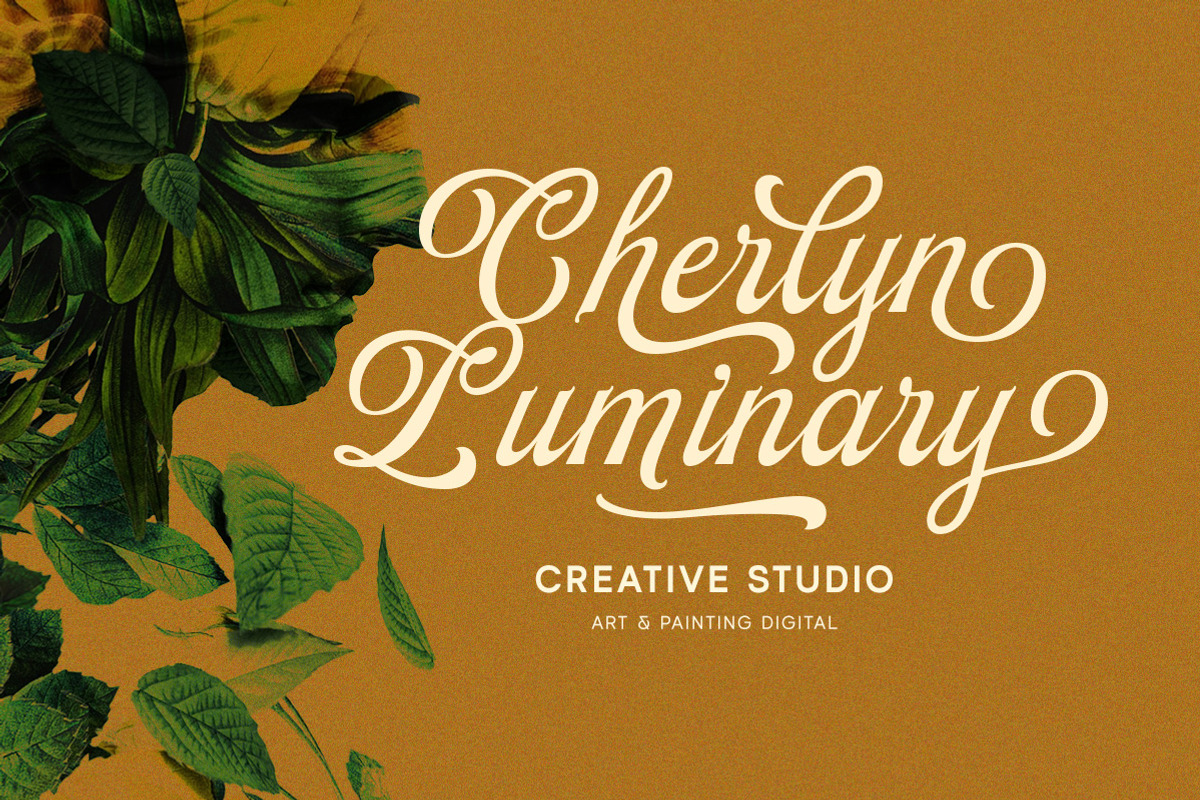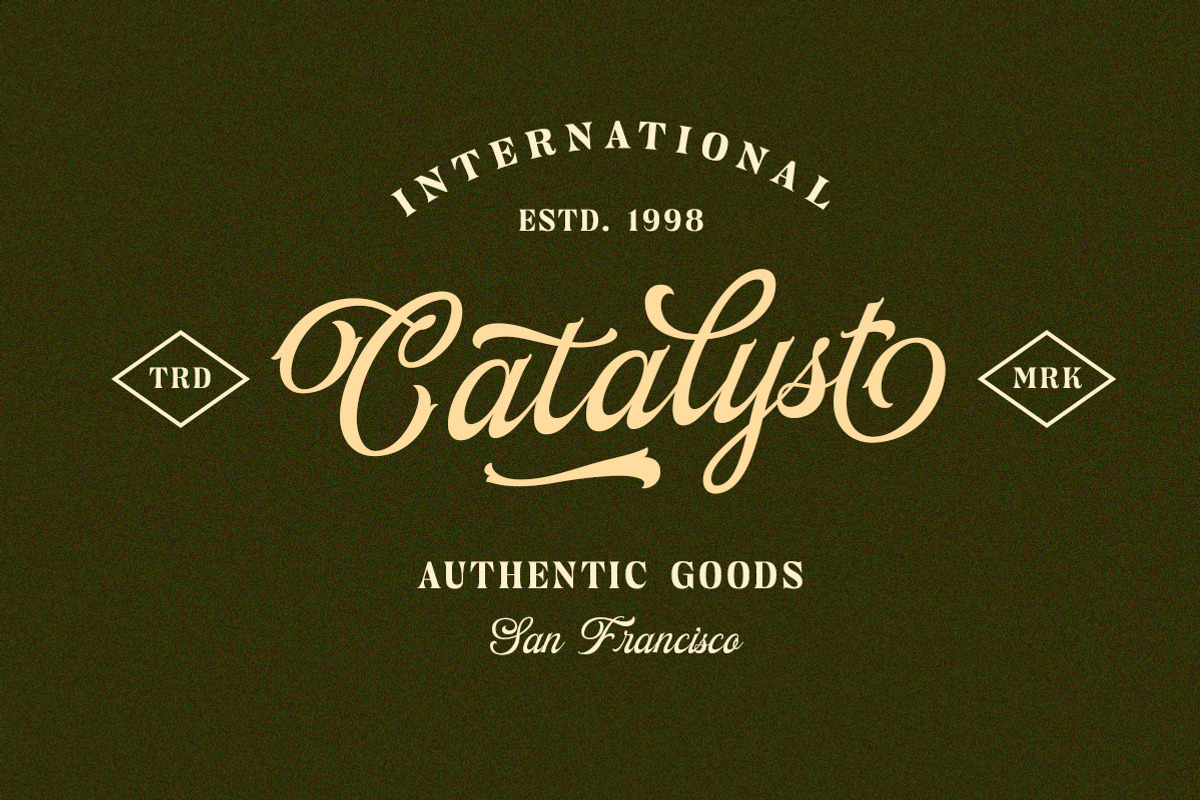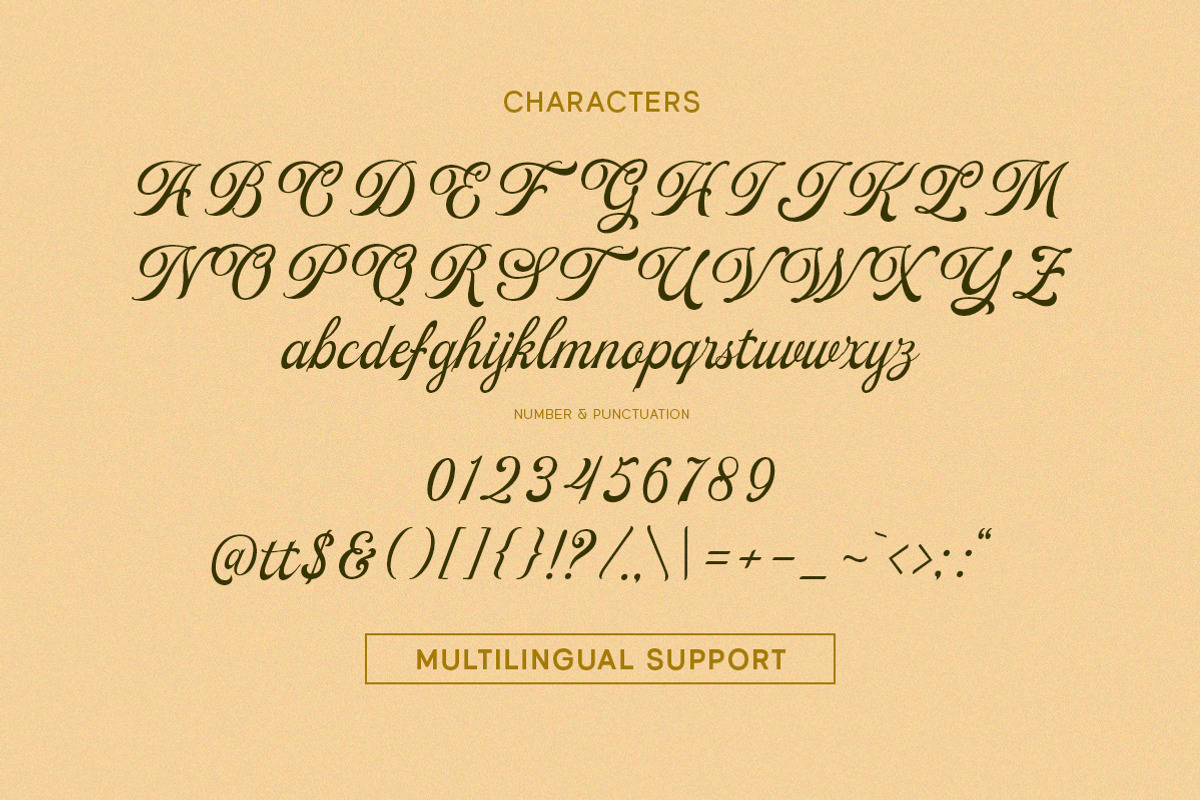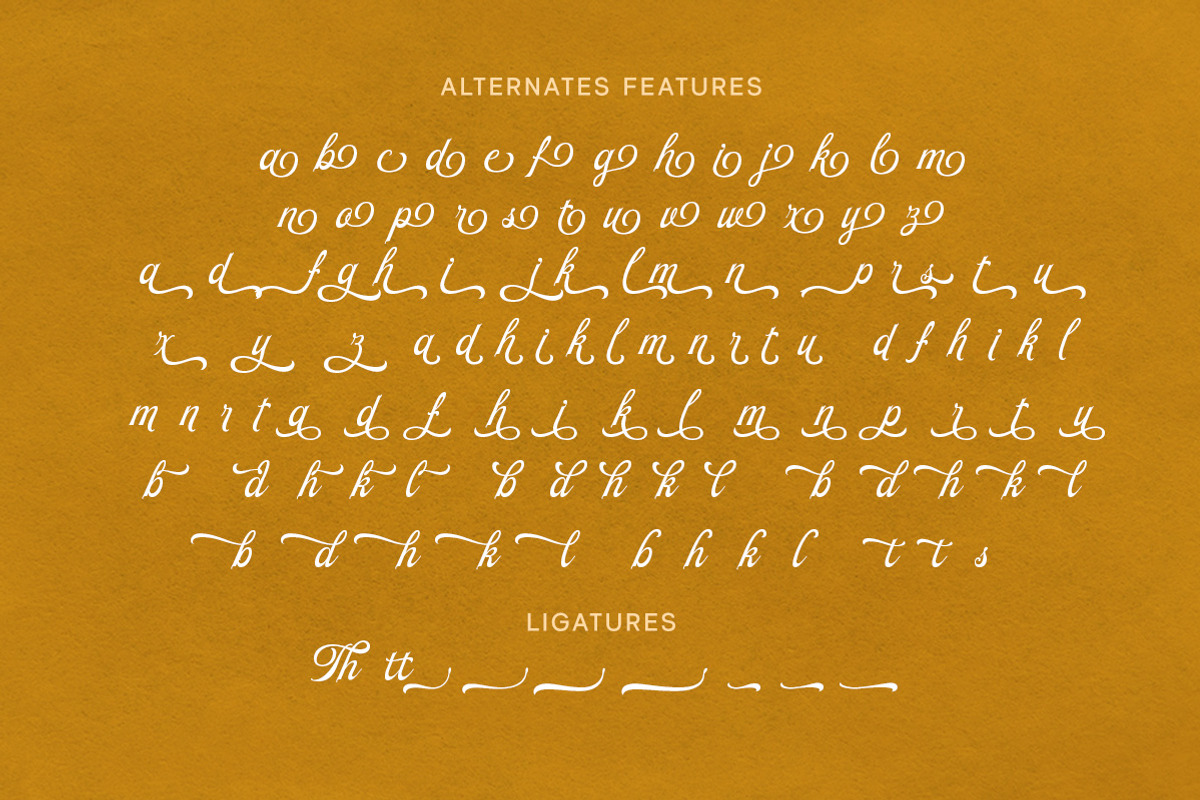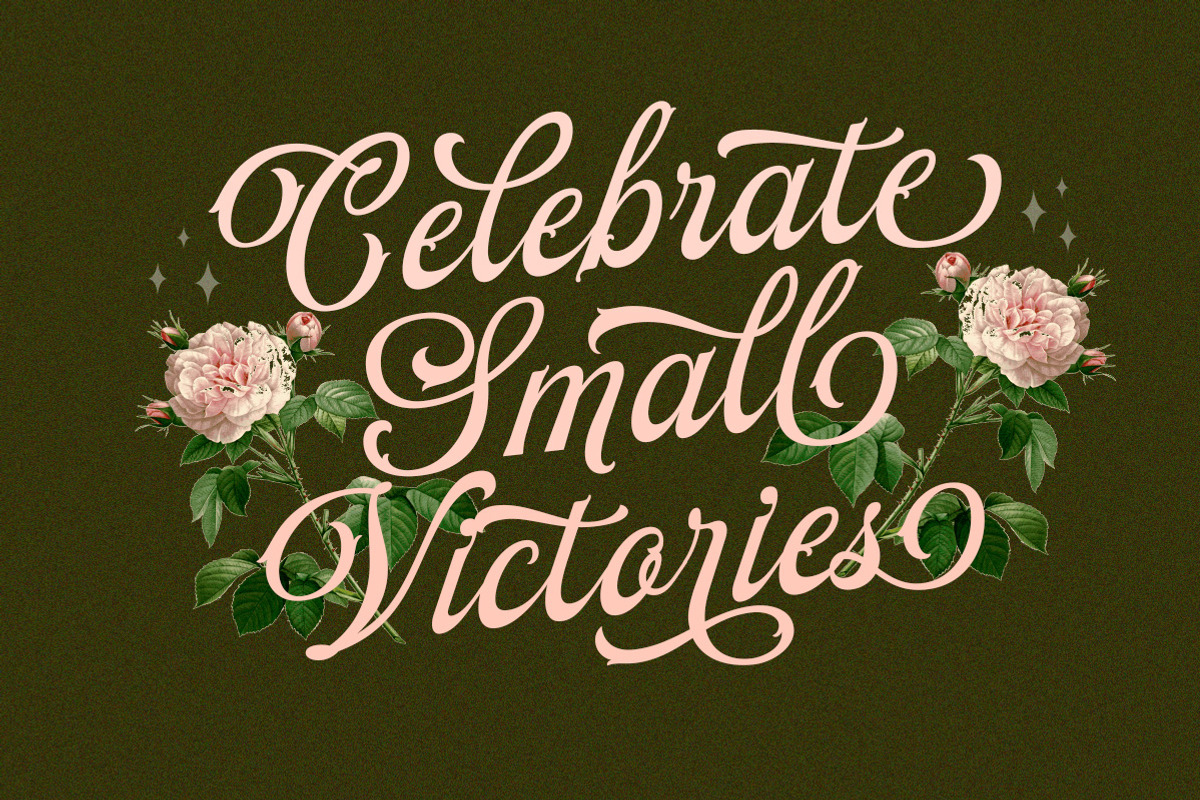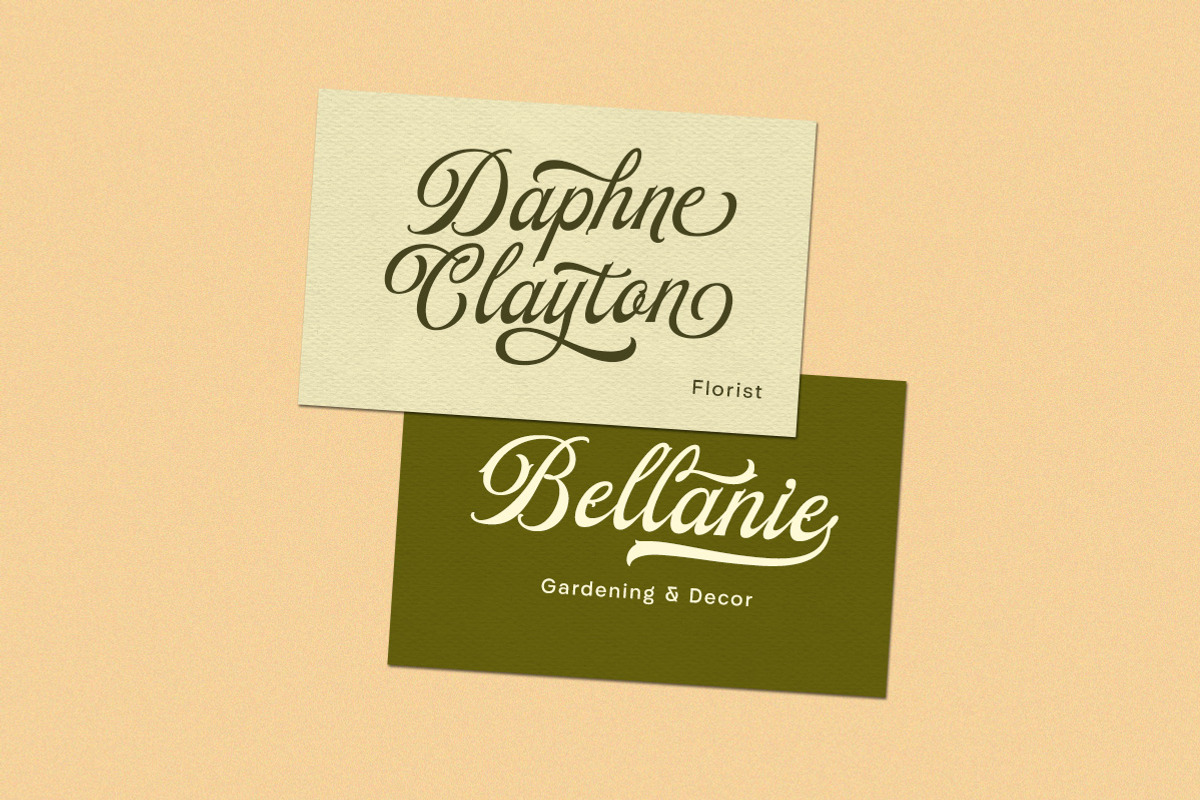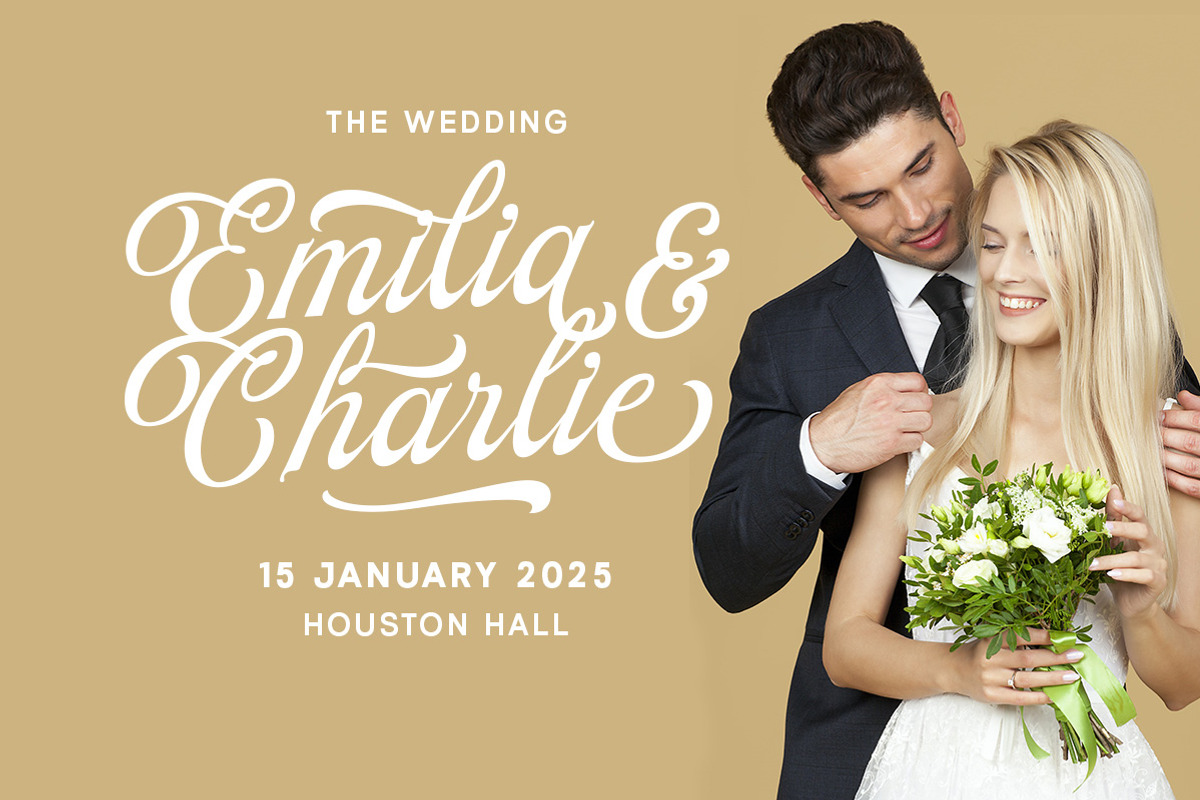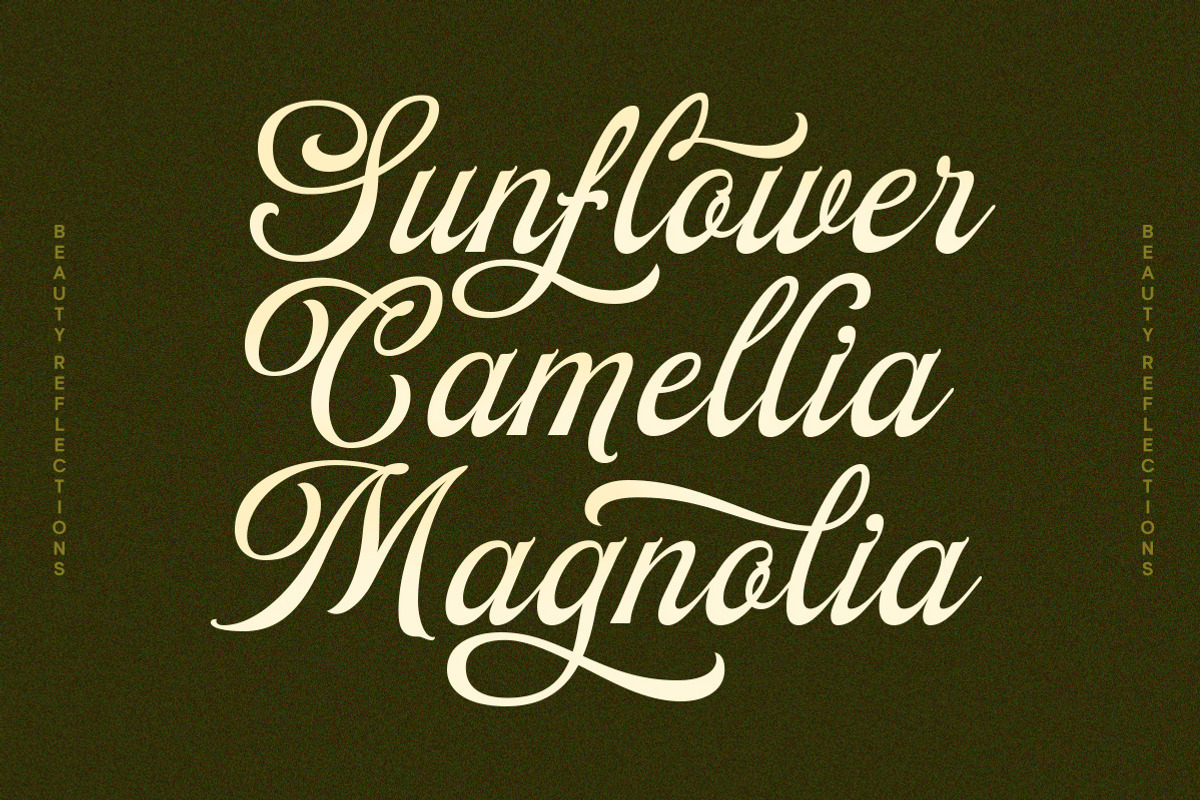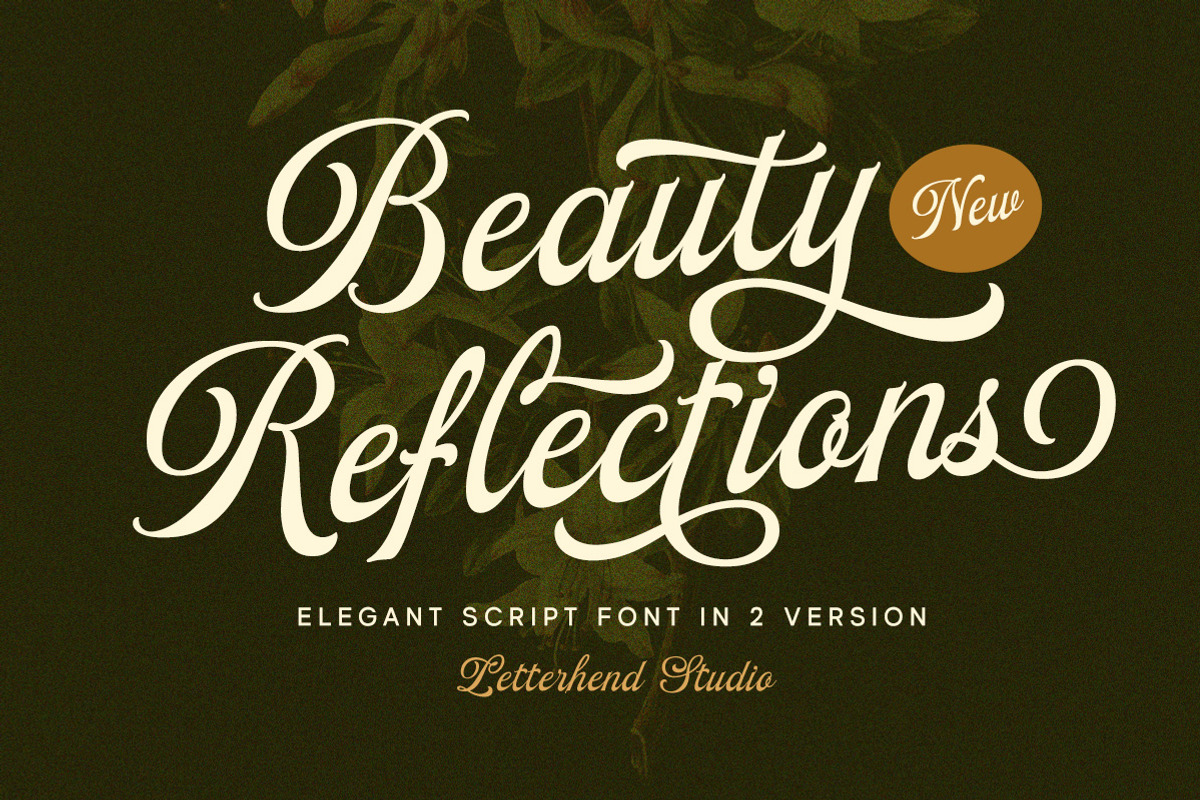
Beauty Reflections - Elegant Script
Beauty Reflections is a elegant script font that embodies the artistry of calligraphy with a touch of grace. The carefully crafted letterforms exquisite flourishes and intricate details, showcasing the perfect balance between elegance and opulence.It comes with regular and custome version.